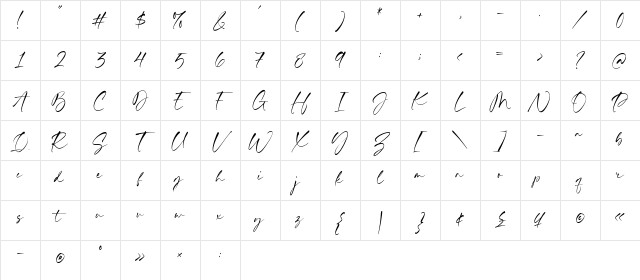
Richard Hampton Regular Free Font
Richard Hampton Regular
Designer: Timur Type Studio
Design Context for Richard Hampton
Richard Hampton is a composed and adaptable typeface that performs quietly and consistently across a wide range of design contexts.